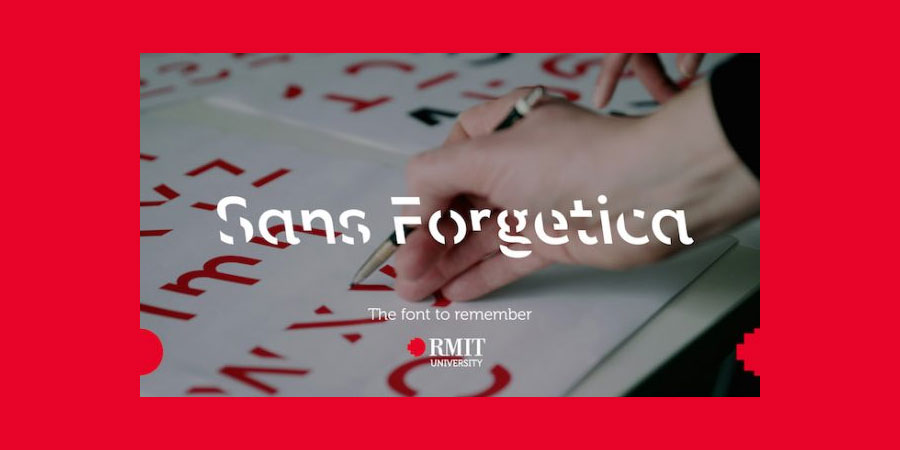
‘Desirable difficulty’ – RMIT launches font that increases memory retention
RMIT and creative agency Naked have crafted a new font specifically designed to increase memory retention.
‘Sans Forgetica’ is a f1ont crafted by researchers and academics from RMIT’s School of Design and Behavioural Business Lab in conjunction with Naked specifically designed to help students remember typed study notes.
According to Naked, the font was designed using a learning principle known as ‘desirable difficulty’ – where an obstruction is added to the learning process to promote deeper cognitive processing, which in turn results in better memory retention.
sans forgetica breakdown
“Year 12 students studying for exams have a lot on their plate, so we wanted to find a way to be useful and give them something to actually help their study,” says Naked executive creative director Jon Burden.
“We investigated ways to aid memory and uncovered previous research which gave us our starting point. From there we were able to work with the brilliant people within RMIT to develop, refine and test what became Sans Forgetica.”
Variations of the font were tested with 400 students in laboratory and online experiments. According to RMIT, Sans Forgetica was the most effective in demonstrating an increase in test subject’s memory retention.
The release of the study tool comes at one of the most competitive periods of the year for Australia universities.
Associate director – brand, segments and campaigns at RMIT University Lynda Cavalera comments, “We’ve created a genuinely unique tool that any student can use to help them with their studies, and we’ve done it by bringing together people within the university to put theory into practice.”
Sans Forgetica is being promoted over social channels and an outreach program to Victorian schools. Naked worked with sister Enero agency Orchard as technology partner for the project.
Burden concludes, “It’s a lovely blend of art meeting science; of theory meeting practice. I only wish it was around when I was at school!”